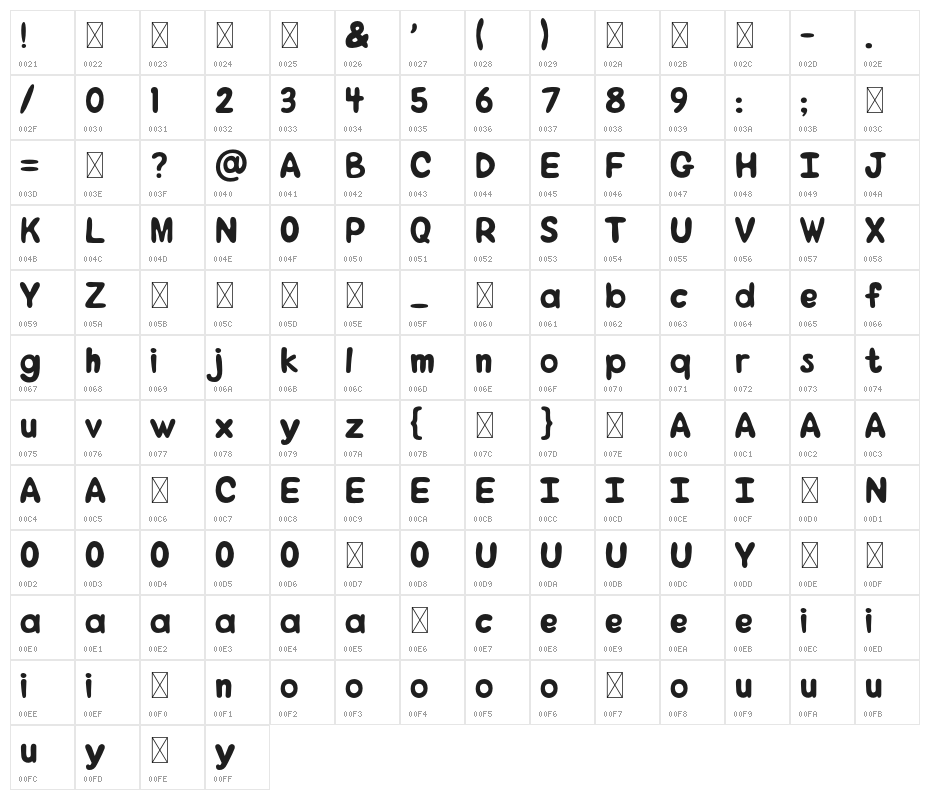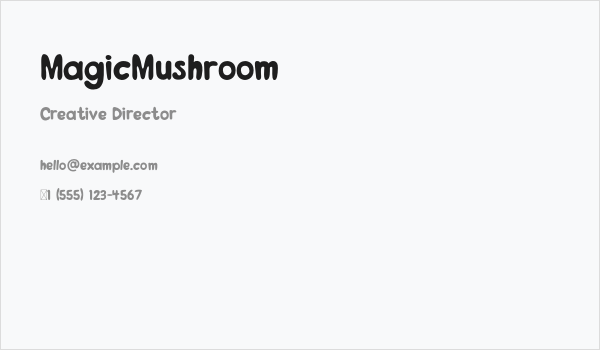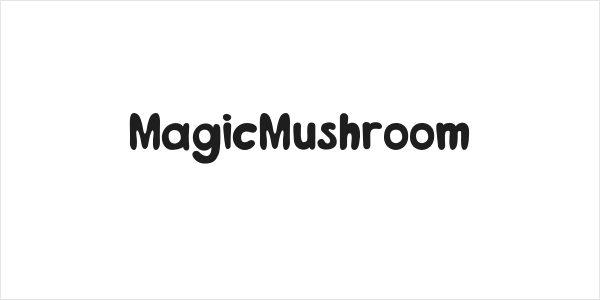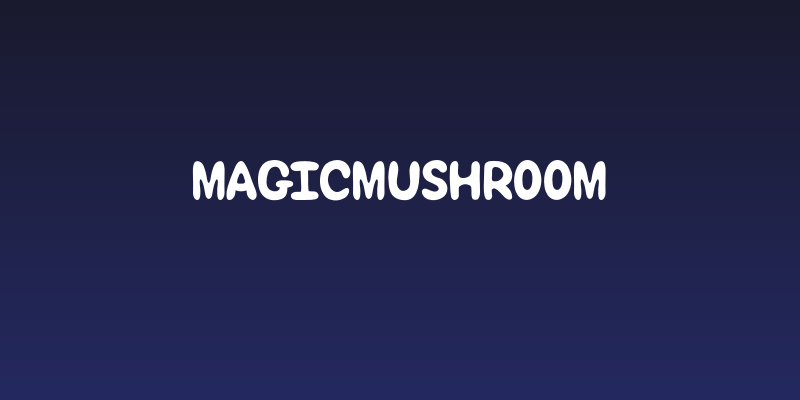
MagicMushroom Font
MagicMushroom Description
This font features a playful and bold design with rounded edges and a bubbly appearance. The characters are thick and have a consistent weight throughout, giving them a friendly and approachable feel. The uppercase and lowercase letters maintain a uniform style, with the lowercase letters mirroring the playful nature of the uppercase. The numbers are equally bold and rounded, ensuring readability while maintaining the overall whimsical aesthetic. The special characters are designed to match the playful style, making this font suitable for creative and informal projects.